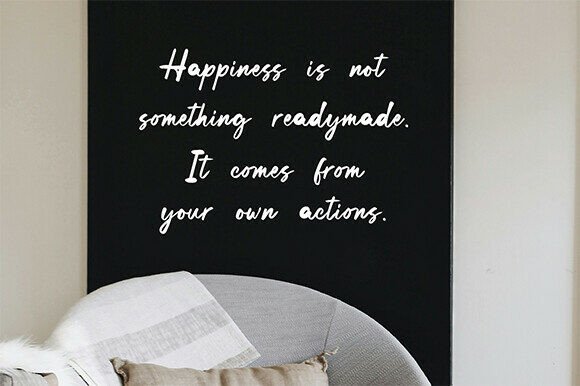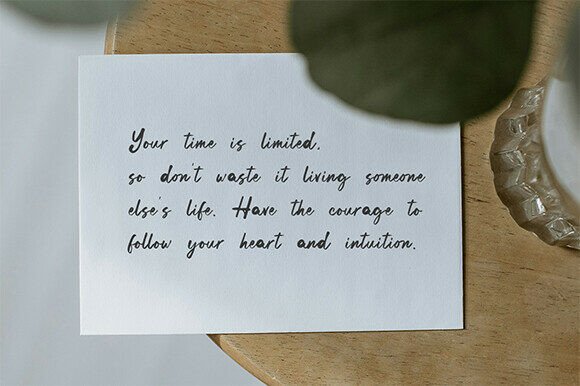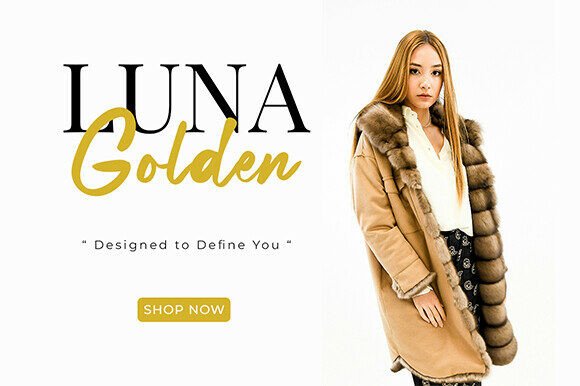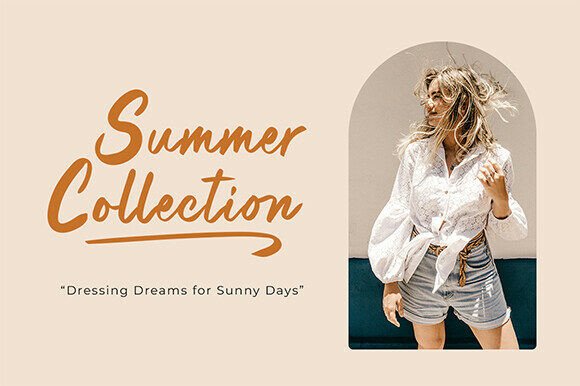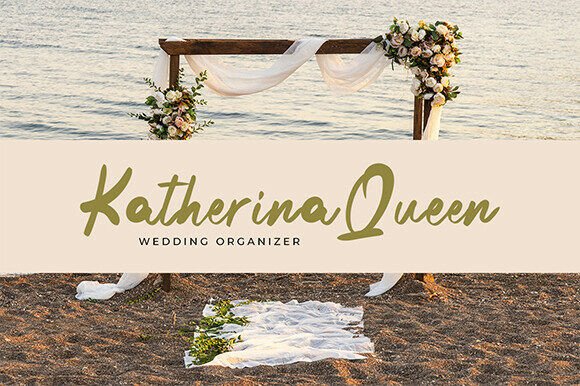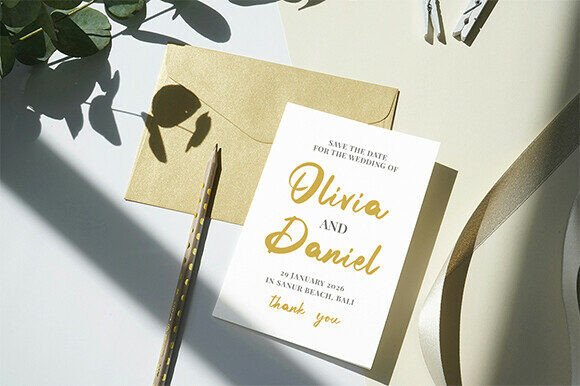
The Bold Canvas Font: Elevating Designs with Elegance and Modern Charm
I’ll never forget the time I was working on a branding project for a high-end boutique client. I had nailed down the color palette, logo concept, and overall aesthetic, but something was missing. As I scrolled through font after font, I just couldn’t find the right fit. That was until I stumbled upon the Bold Canvas font. Its fluid strokes and graceful curves instantly captured the essence of my client’s vision, and I knew I had found the perfect match.
A Closer Look: What Makes Bold Canvas Special
Bold Canvas is more than just a stylish script font – it’s a design game-changer. With its carefully balanced letterforms and modern edge, it brings a touch of sophistication and personality to any project. Here are some of the things I love about this font:
- ✨ Elegant and refined, perfect for high-end branding and luxury designs
- ✅ Highly versatile, suitable for logos, invitations, packaging, and social media graphics
- 💫 Features fluid strokes and graceful curves for a natural, hand-drawn feel
- 🔍 OpenType features and glyphs for added creativity and customization
While Bold Canvas is an exceptional font, it’s not without its quirks. Here are a few things to keep in mind:
- ⚠️ May not be the best fit for very long blocks of text or body copy
- 🤔 Some users may find the font a bit too ornate or over-the-top for certain designs
The Story Behind Bold Canvas: Designer Inspiration
Bold Canvas was created by a talented type designer who sought to capture the essence of hand-drawn calligraphy with a modern twist. Inspired by the flowing lines and elegant curves of traditional calligraphy, the designer aimed to create a font that would bring a touch of sophistication to any design. Through careful craftsmanship and attention to detail, Bold Canvas was born – a font that embodies both elegance and modern charm.
| What makes Bold Canvas suitable for high-end branding? | Bold Canvas features elegant and refined letterforms, making it perfect for luxury designs and high-end branding. |
| Can I use Bold Canvas for body copy? | While Bold Canvas is beautiful, it’s best suited for headlines, titles, and short blocks of text. For longer body copy, a more readable font might be a better choice. |
| Does Bold Canvas support OpenType features? | Yes, Bold Canvas features OpenType functionality, allowing you to access glyphs, stylistic alternates, and other creative options. |
| Is Bold Canvas easy to read? | Bold Canvas is designed to be elegant and refined, but its readability may vary depending on the context and design. For optimal readability, use it in moderation and at suitable font sizes. |